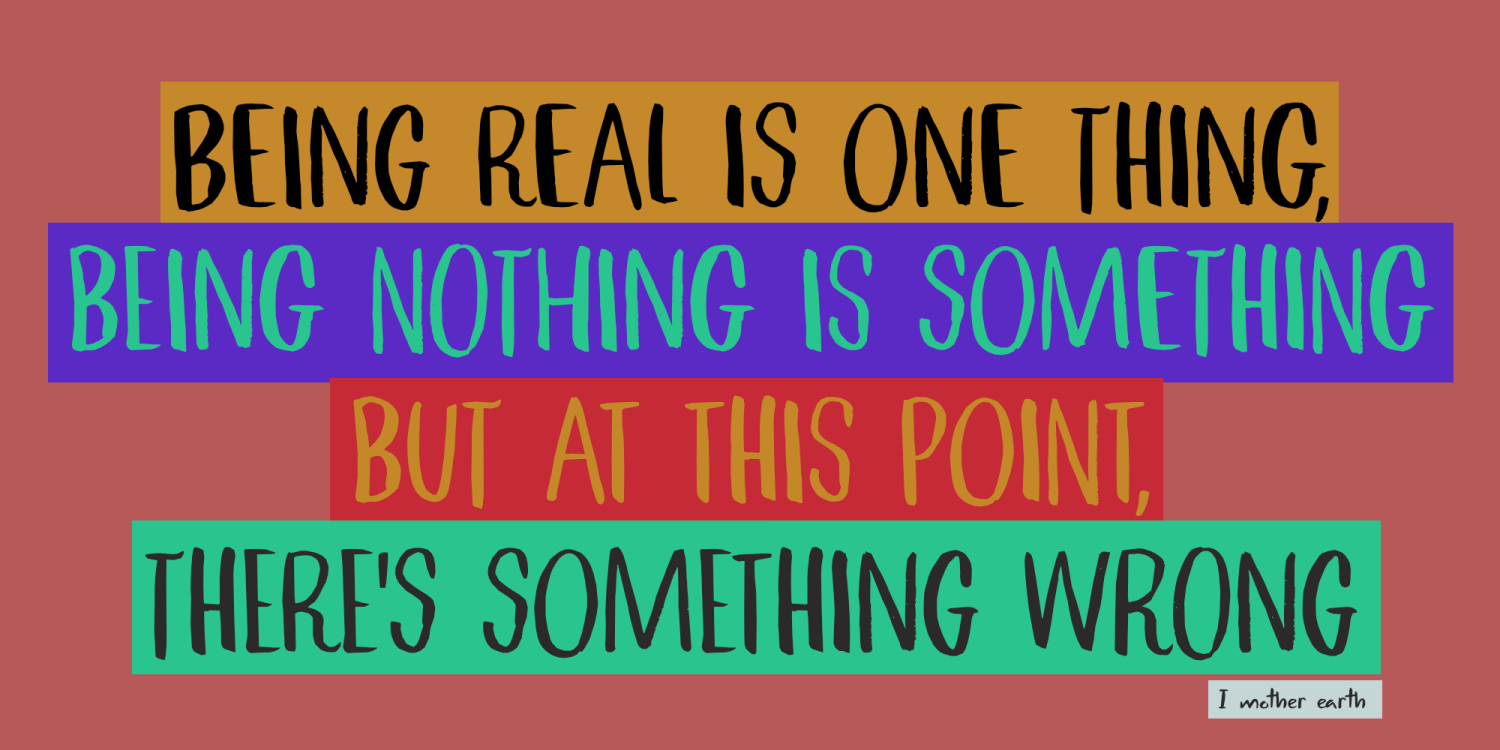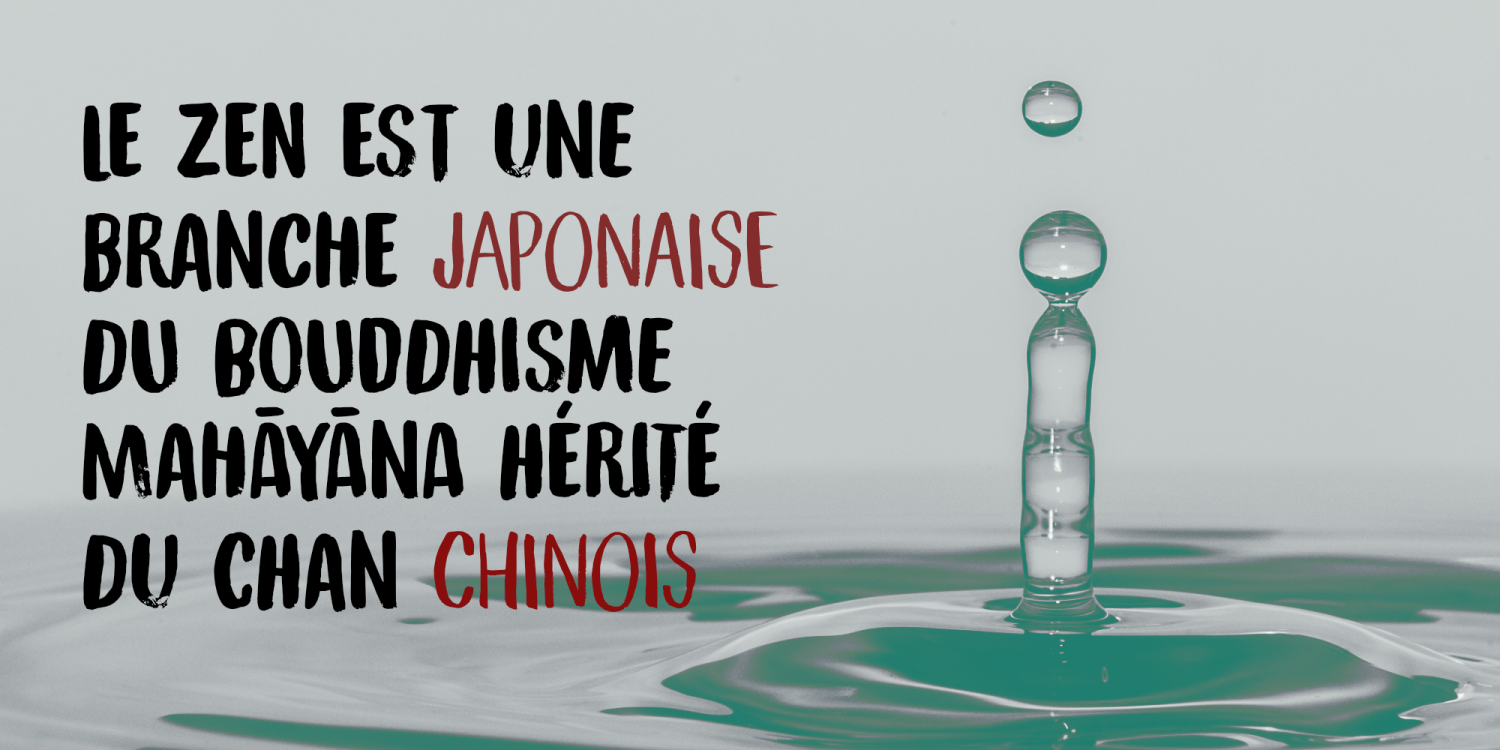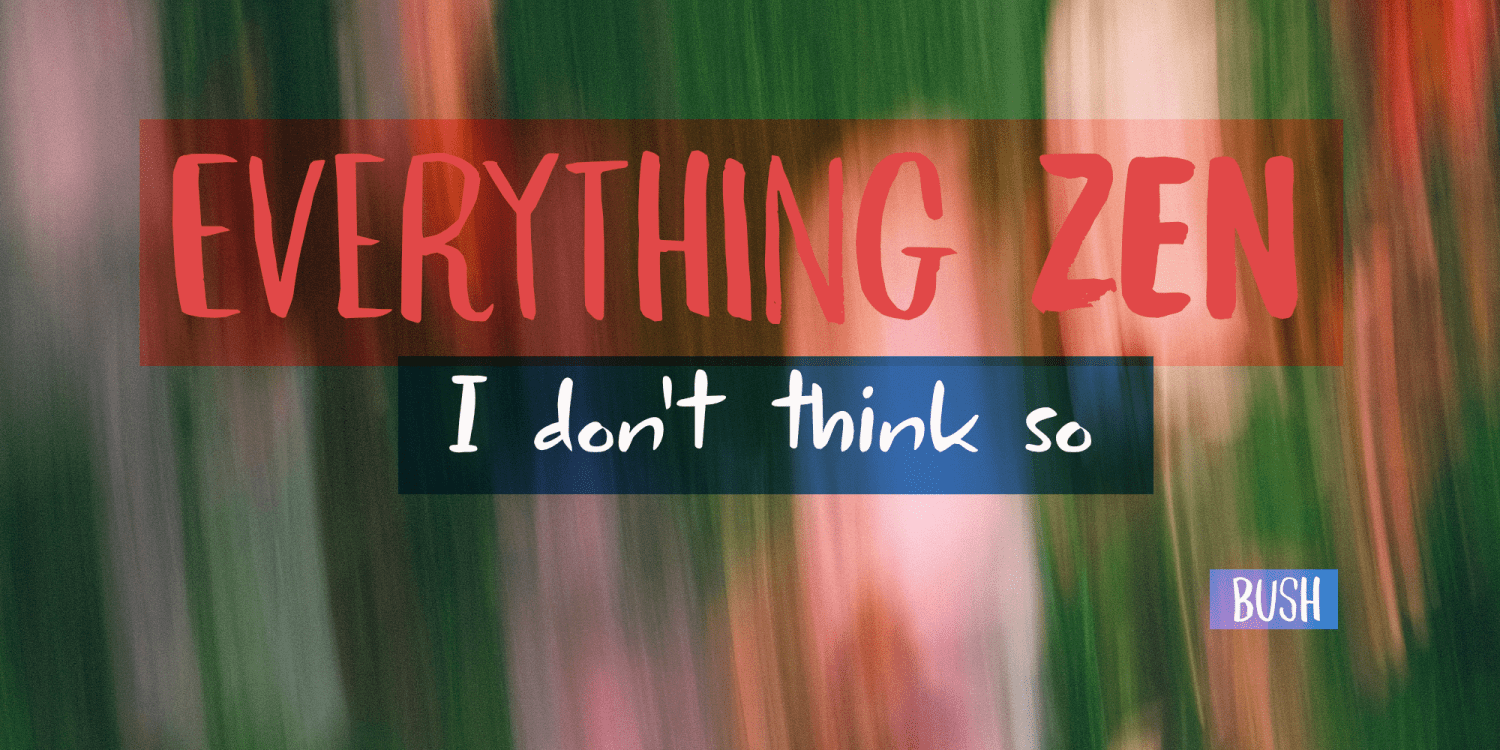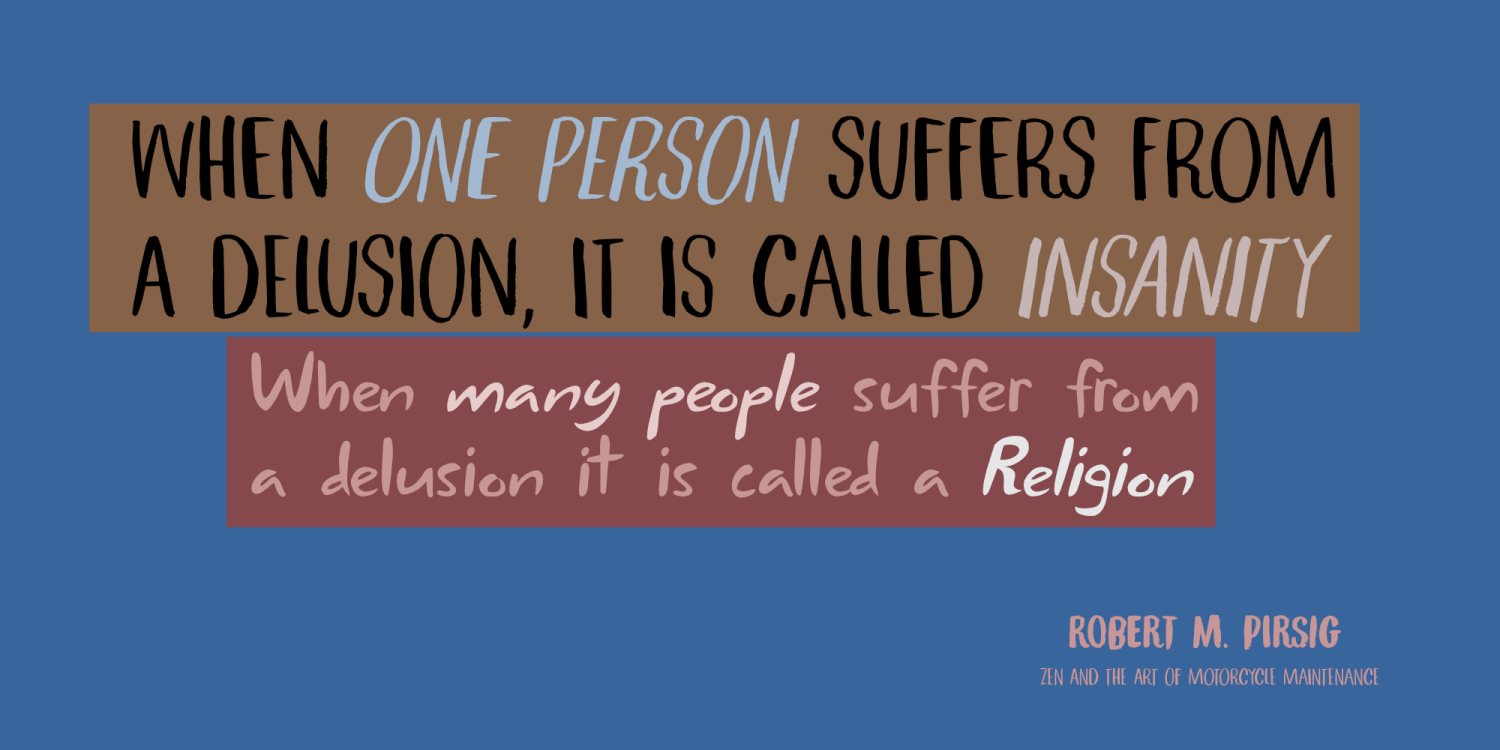
Not Quite Zen
Not Quite Zen font family was named after two of my favourite ’90’s rock songs: Everything Zen by British band Bush and Not Quite Sonic by Canadian rockers I Mother Earth. My daughter started drums lessons a while ago and the teacher asked her to come up with a few of her favourite songs to practise with. Since she likes poppy songs, that use drum computers, I made a list of ‘old’ nineties songs that she could use instead. Both Bush and I Mother Earth feature heavily on that list!
Enough about my choice of music - Not Quite Zen is a 3 font family (with Italics); two brush fonts and a script. They go together really well, so let your creativity run wild!